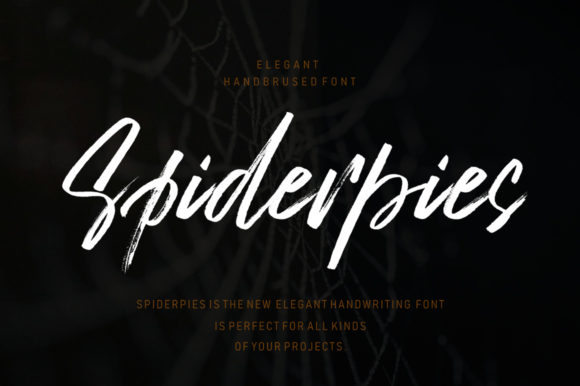
Journey into the realm of elegance and style with Spiderpies, a captivating handwritten font family, a creation of luckytype.font. Experience the fusion of traditional calligraphy with a modern flair, adding a touch of sophistication to your creative endeavors.
Immerse yourself in the beauty of Spiderpies, a script font that dances across the page with a touch of whimsy and grace. Its meticulously crafted characters evoke a sense of timeless artistry, making it the perfect choice for those seeking a unique and alluring font for their projects.
Let Spiderpies elevate your invitations, branding, social media posts, and more, with its ability to transform ordinary text into captivating works of art. Its delicate strokes and effortless flow create a sense of authenticity and charm, capturing the attention of your audience and leaving a lasting impression.
Unleash your creativity with Spiderpies, a font that seamlessly adapts to a myriad of design styles. Whether you're crafting elegant wedding invitations or creating eye-catching social media graphics, this versatile font is your perfect companion. Its adaptability ensures that your message shines through, regardless of the medium.
Embrace the artistry of Spiderpies, a font designed to ignite your imagination and inspire your creative spirit. Its contemporary touch ensures that your projects stand out from the crowd, exuding a sense of sophistication and individuality. Let Spiderpies be your creative partner, transforming your words into captivating expressions of art.